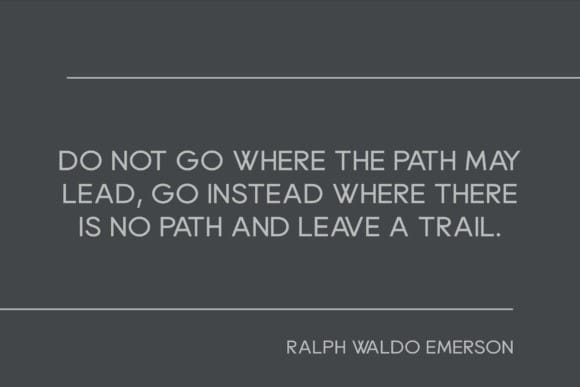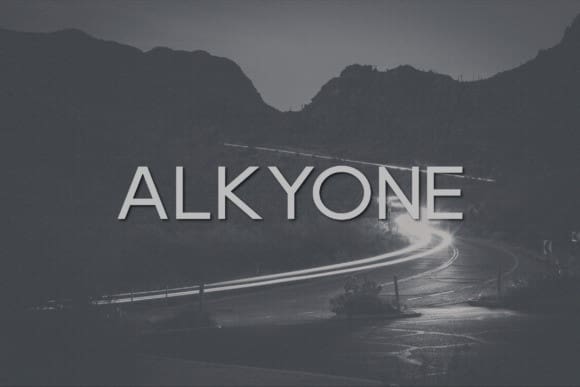
Alkyone Font
Alkyone Font – a contemporary, sophisticated sans serif typeface. With a collection of uppercase characters, numerals 0-9, and a variety of punctuation and symbols, Alkyone sets the stage for dynamism and versatility. Its versatility makes it the ideal font for crafting captivating logos, elegant wedding invites, inspiring quotes or eye-catching advertisements. Whether it’s for print or magazine layouts, Alkyone is designed to bring a touch of class to your every design endeavor.